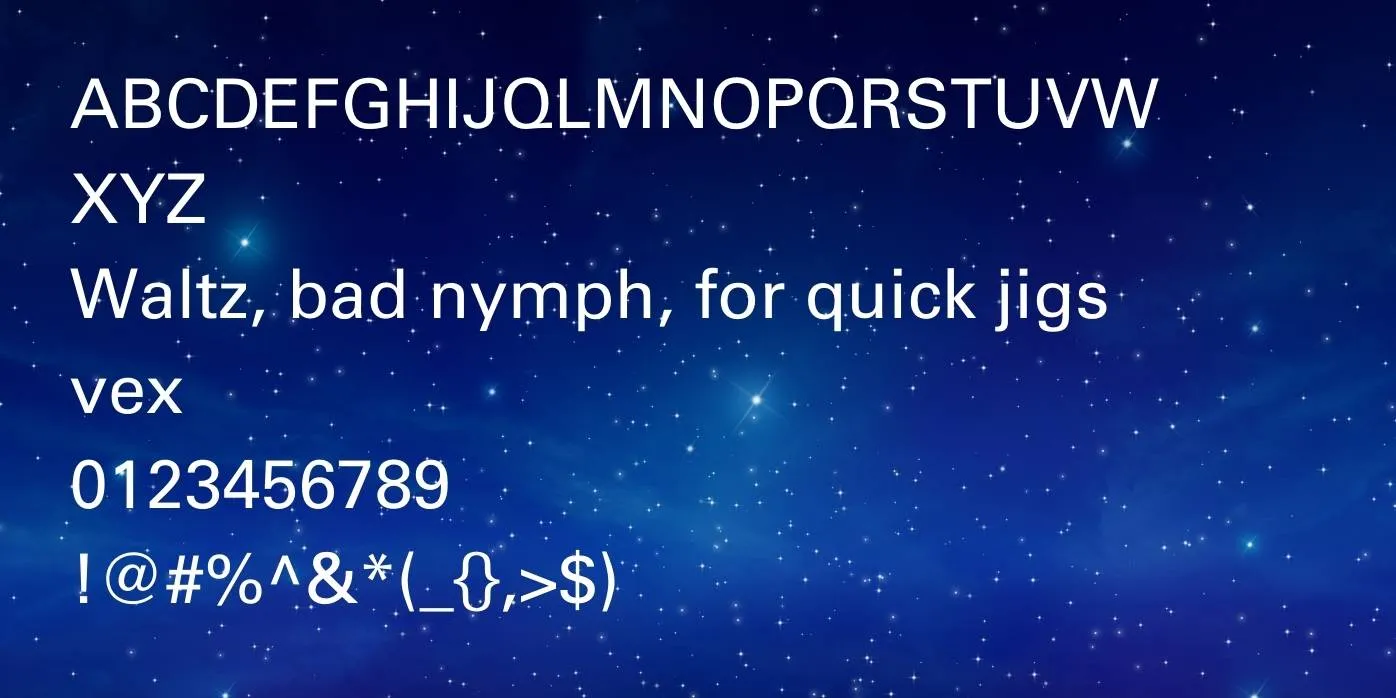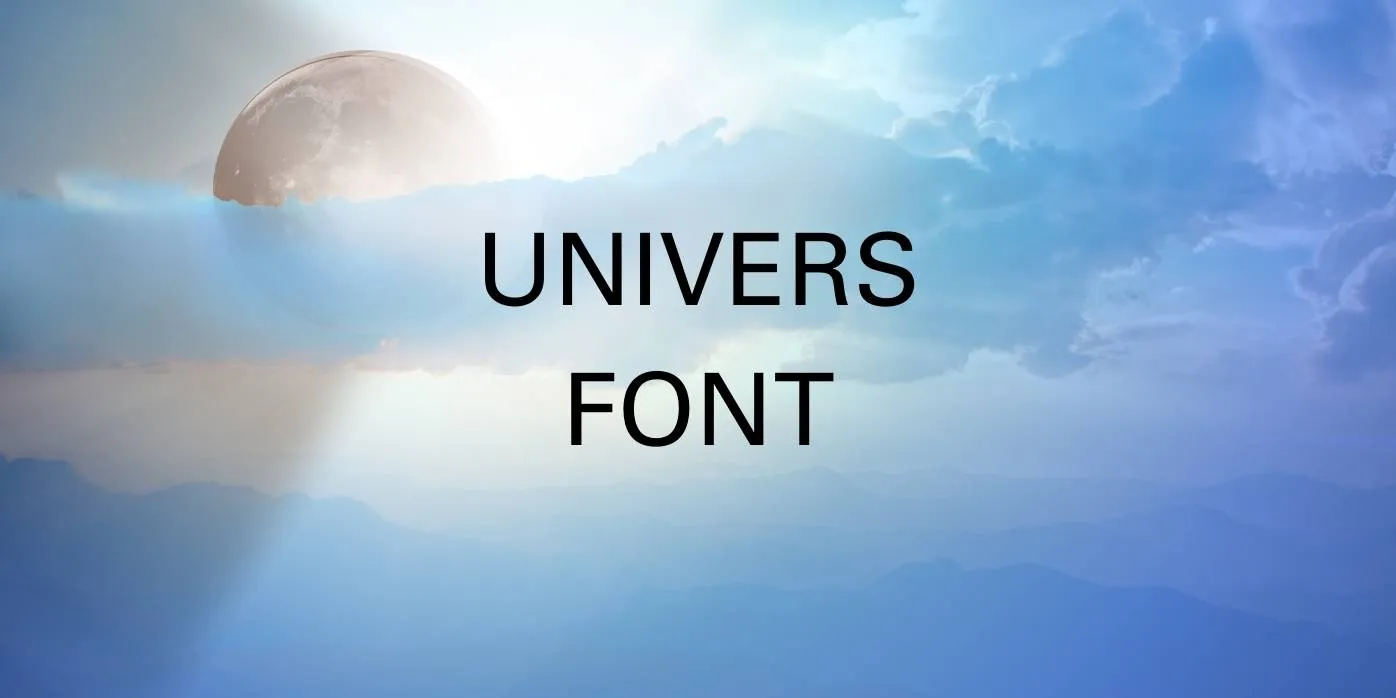
Univers Font
Univers font is a very famous and general typeface that has geometrical with outstanding touch. The designer of this splendid and useful font is Adrian Frutiger and it has many styles and functions. The font is released by his employer Deberny & Peignot in the age of 1957. If we talk about its style and weights the typeface comes in Sans serif style and different weights consisting of Black, Condense Light, Bold, Extended, and Oblique, and all the weights can fit many different weights.
It has too many weights which means it has many functions and the designer will enjoy it while using the typeface. And will gain conventional performance from this typeface.